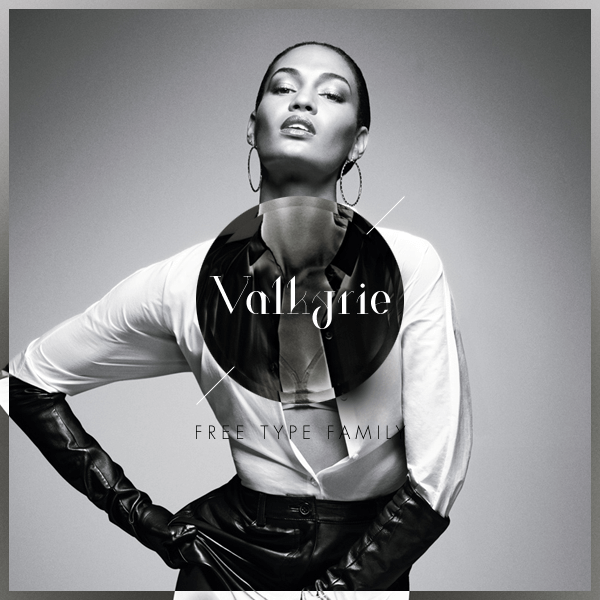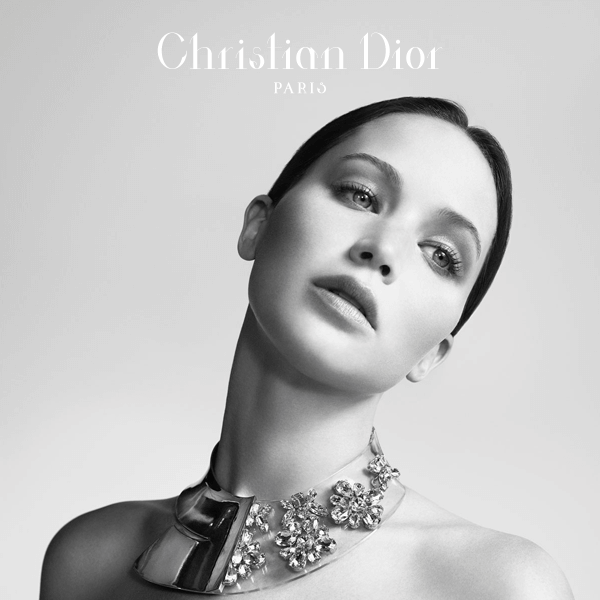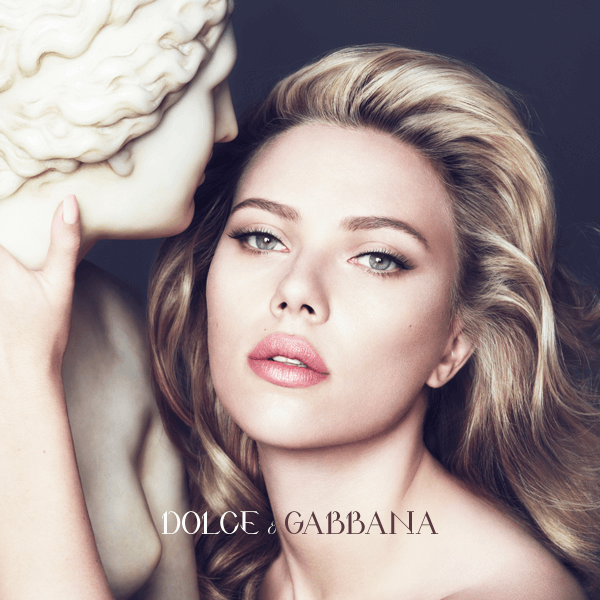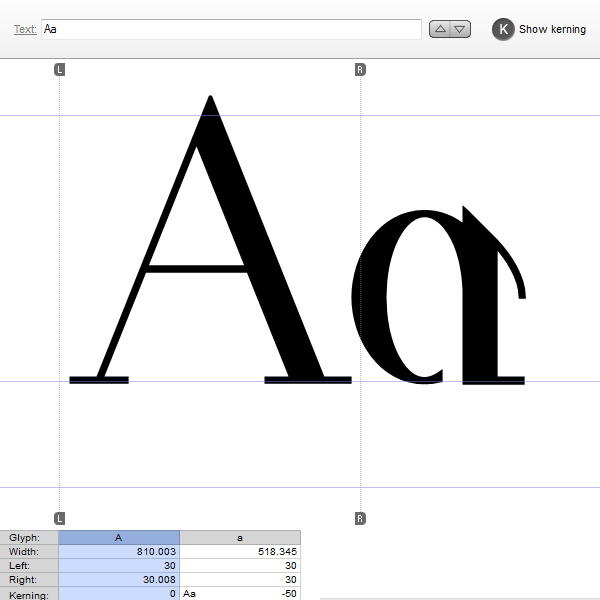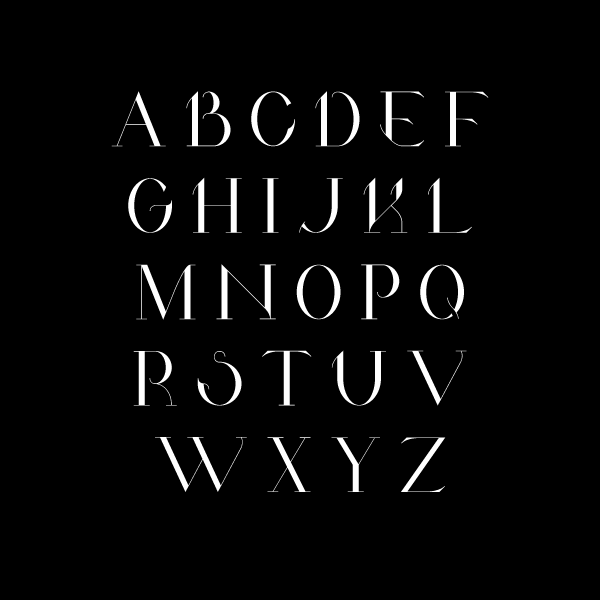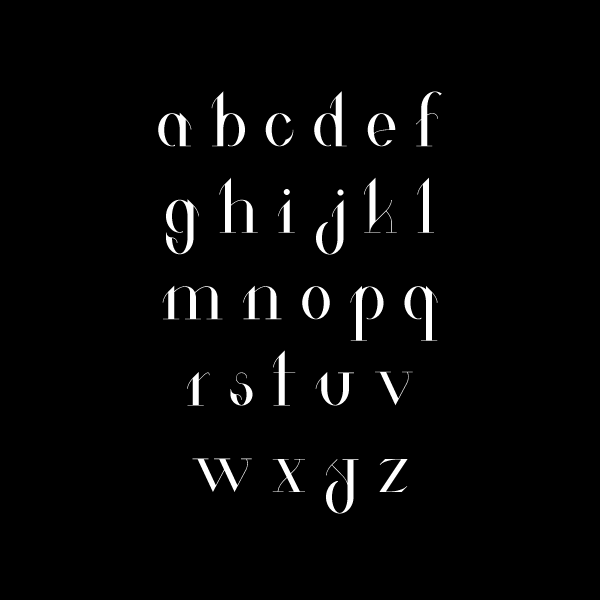
Valkyrie Free Font Family
Valkyrie free font family it’s a remarkable typeface designed with a considerable detail. It includes a set of 12 fonts with 186 glyphs per font. We already shared here another fantastic font family made by Hendrick Rolandez, the equally great Glamor typeface was made with the same high quality standards that this designer as habituated us.
So this beautifully font family it’s full of elegance and will work perfectly in fashion headlines magazines, posters, logos, etc.
Valkyrie fee typeface family
Example
Kerning detail
uppercase
lowercase